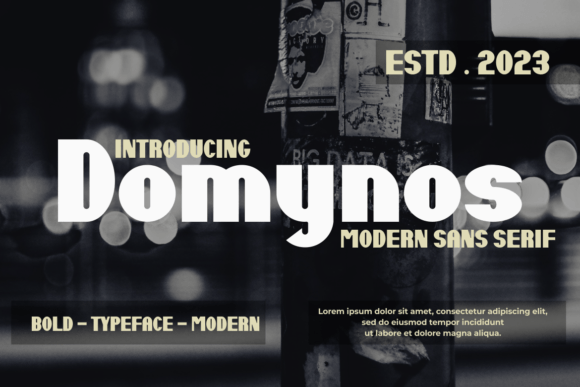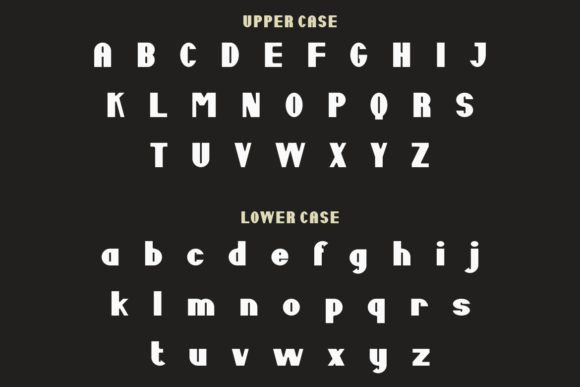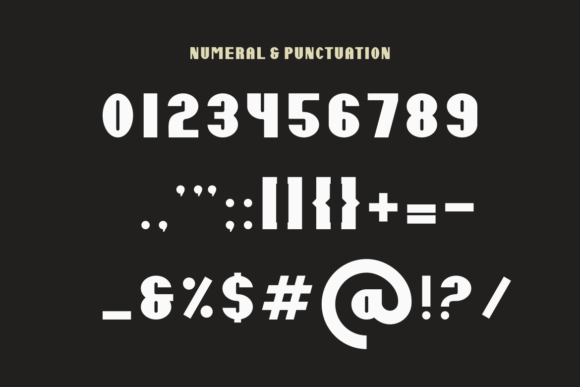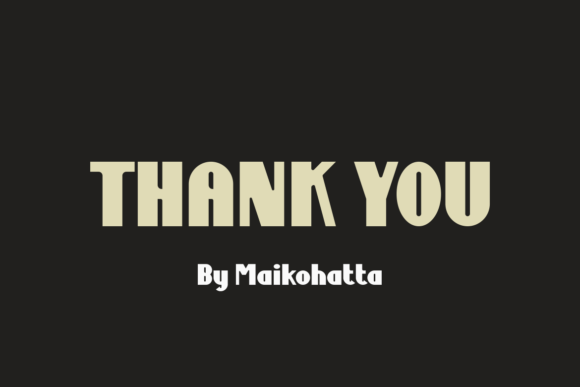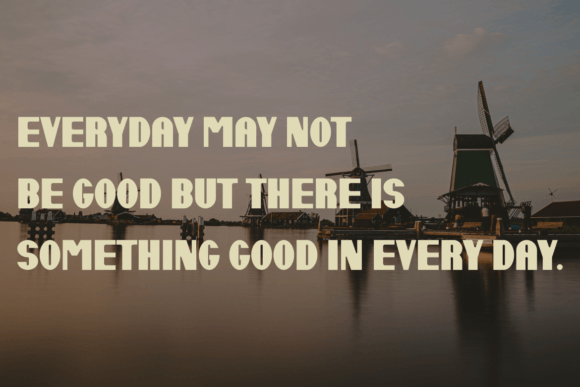
Unlock the Power of Bold Typography with Domynos Font
Have you ever stared at a blank canvas, waiting for inspiration to strike? You know, that moment when the perfect idea seems just out of reach? For designers, this is a familiar feeling. But what if we told you that the right font could be the key to unlocking your creativity? Introducing Domynos Font – a modern, bold, and authentic display font that’s sure to elevate your branding projects.
Whether you’re working on a logo, template design, or sports-themed project, Domynos Font is the perfect choice. Its versatility and outstanding performance in a wide range of contexts make it a valuable asset for any designer. With Domynos Font, you’ll be able to create stunning visual identities that leave a lasting impression. So why settle for ordinary when you can have extraordinary? Discover the power of Domynos Font and take your designs to the next level.
Domynos Font Key Features
- Font Family: Domynos Font is a sans-serif font family that offers a clean and modern look.
- Character Set: The font family includes a wide range of characters, including Latin, Cyrillic, and Greek scripts, making it suitable for multilingual designs.
- Unique Characteristics: Domynos Font features a unique blend of geometric and organic elements, giving it a distinctive and modern feel.
Domynos Font Review
As a designer, I’ve had the chance to work with a wide range of fonts, and Domynos is one of the more interesting ones I’ve come across. Let’s dive into what works well and what doesn’t.
- Unique Character Set: Domynos has a distinct set of characters that set it apart from other fonts. It’s perfect for designers looking for something unconventional.
- Great for Display Text: The font is well-suited for display text, making it perfect for headlines, titles, and other prominent text elements.
- Legible: Despite its unique design, Domynos remains legible even at smaller font sizes.
- Limited Language Support: Domynos may not support all languages, which could be a problem for international projects.
- Not Suitable for Body Text: While it’s great for display text, Domynos may not be the best choice for body text due to its unique character set.
Overall, Domynos is a great addition to any designer’s toolkit. While it has some limitations, its unique character set and great display text capabilities make it worth considering for the right project.
Tips: Use Domynos Font for headings and titles to create a bold and modern look. Experiment with different font sizes and colors to add visual interest.
Tips: Use Domynos Font for titles, headings, and body text to create a cohesive and modern design. Experiment with layer styles and effects to add depth and interest.
Tips: Use Domynos Font for headings and titles to create a professional and modern look. Experiment with different font sizes and colors to add visual interest.
Domynos Font is suitable for:
- Modern and minimalist designs
- Business and professional presentations
- Editorial and publishing designs